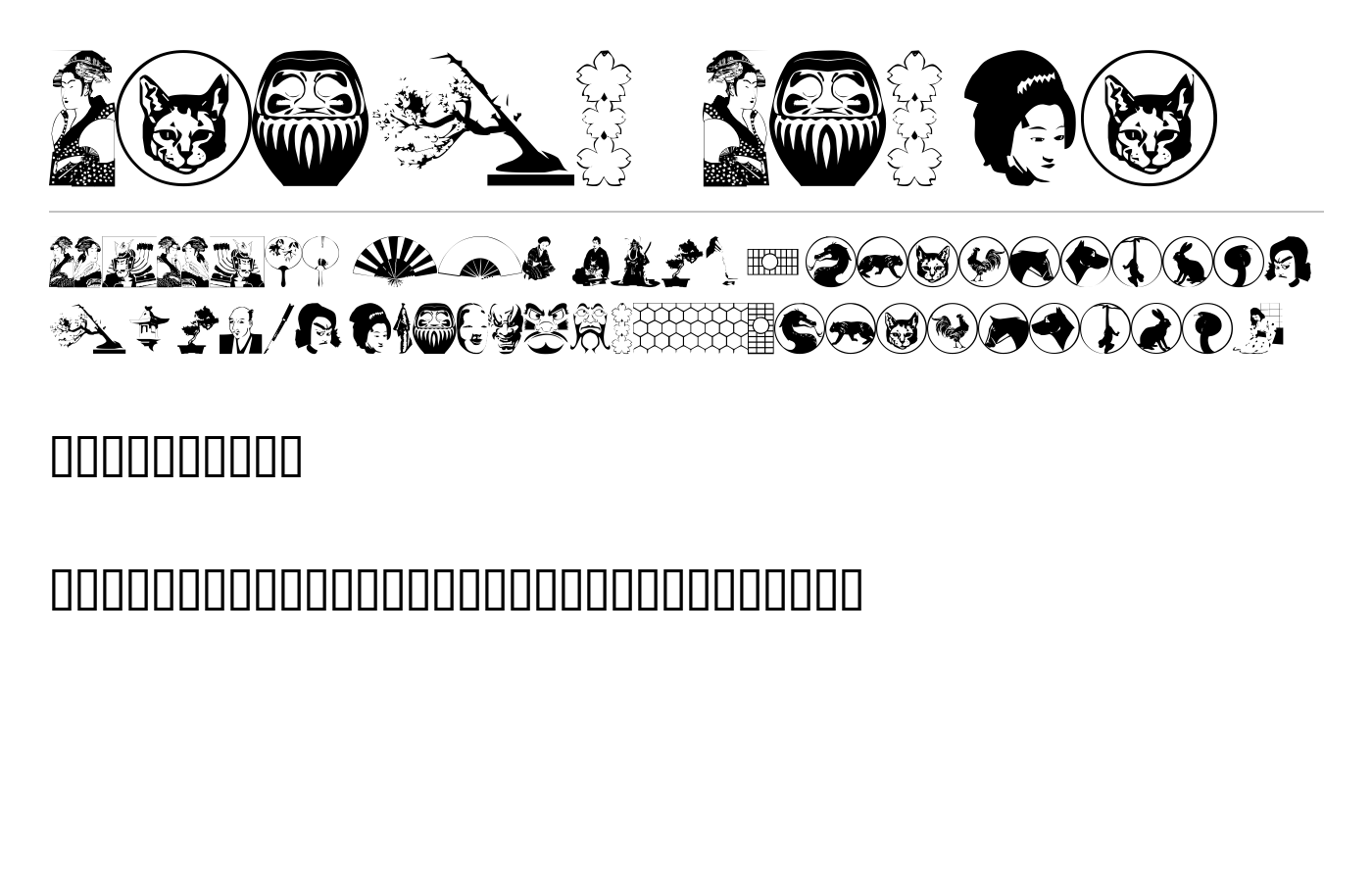
Asian Dings is a decorative dingbat font filled with intricate, culturally inspired symbols and illustrations reflecting traditional East Asian art and motifs. Its detailed pictorial style makes it ideal for adding a unique, authentic flair to design projects that require an artistic or thematic connection to Asian culture. Perfect for creative use in branding, posters, or packaging, this font functions more as a symbolic visual asset than a text face.
Asian Dings Font
About Asian Dings Font